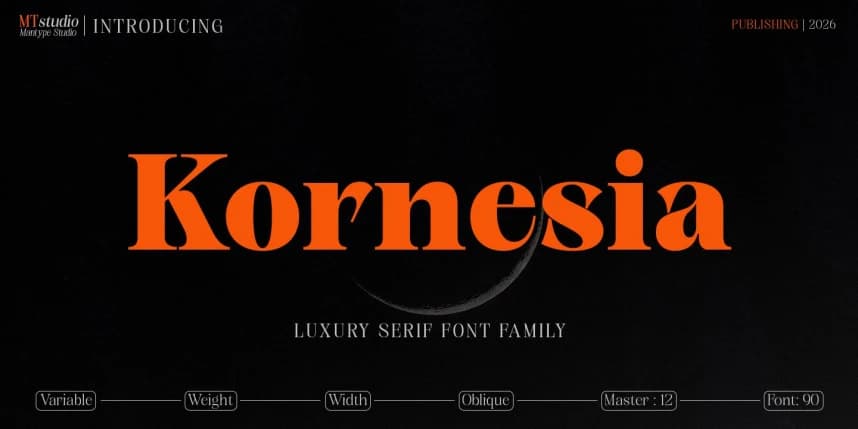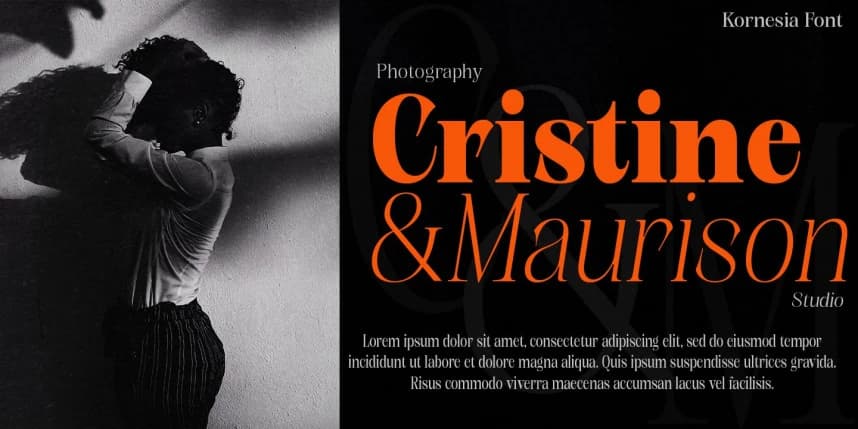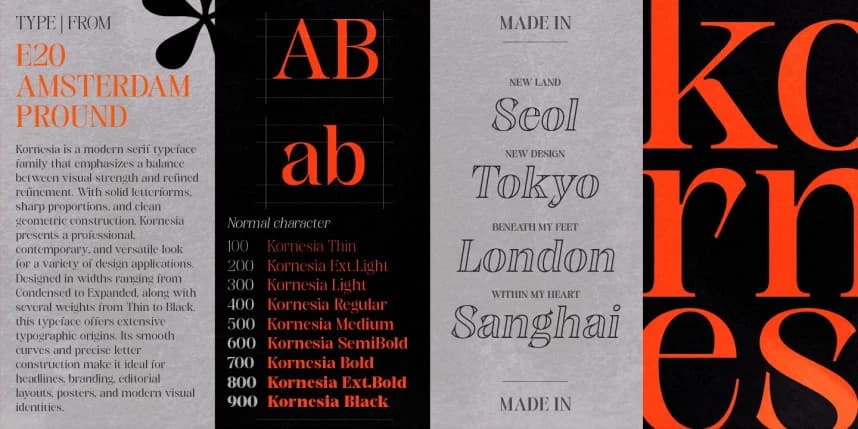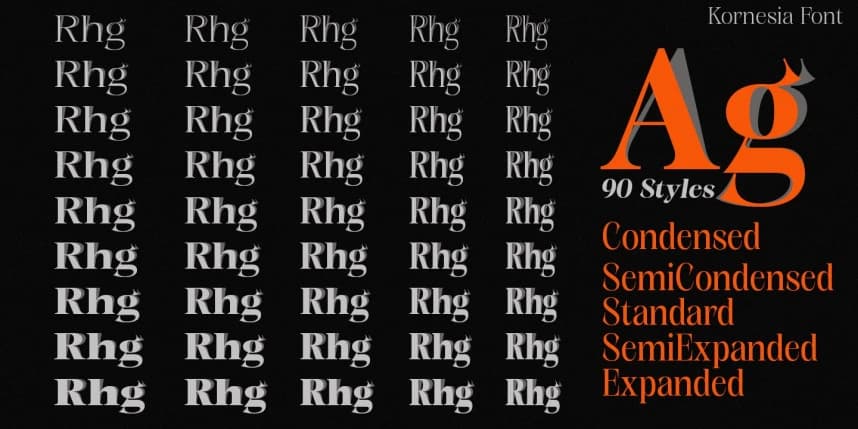
Kornesia Font
Kornesia Font is a luxury serif typeface that blends classic elegance with a bold modern character. Featuring high contrast between thick and thin strokes, it delivers a refined, exclusive, and high-end visual impression.